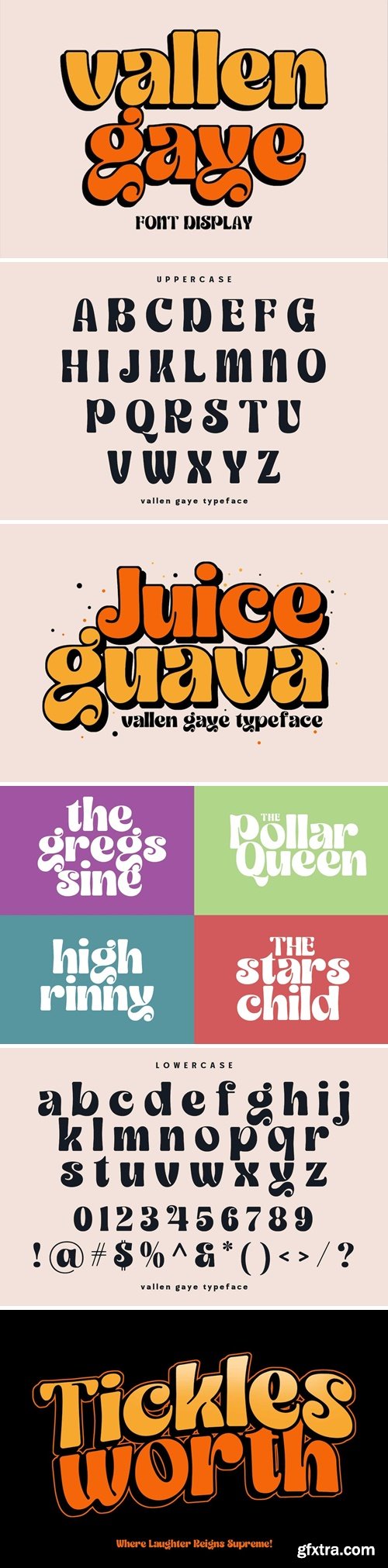
凡尔兰·盖伊字体
Vallen Gaye: Unleash Your Creative Passion with a Dazzling Display Font Step into a world of enchantment and artistic expression with Vallen Gaye, a captivating display font that effortlessly blends sophistication and playfulness. Designed to ignite your imagination and breathe life into your designs, Vallen Gaye is the perfect choice for those seeking a fancy and eye-catching typographic experience. Here's what makes Vallen Gaye truly remarkable: Unleash Your Creativity: With its intricate flourishes and decorative elements, Vallen Gaye unleashes a torrent of creativity, allowing you to infuse your designs with a sense of whimsy and charm. Let your imagination run wild as you create stunning logos, headlines, posters, and more that truly captivate your audience.